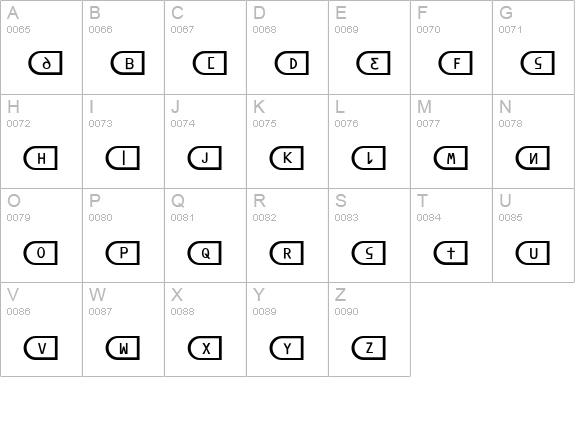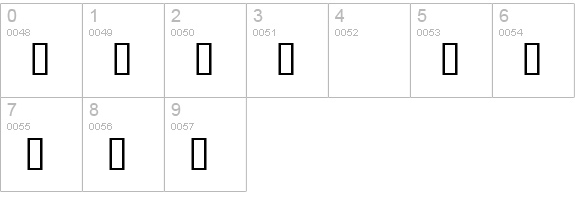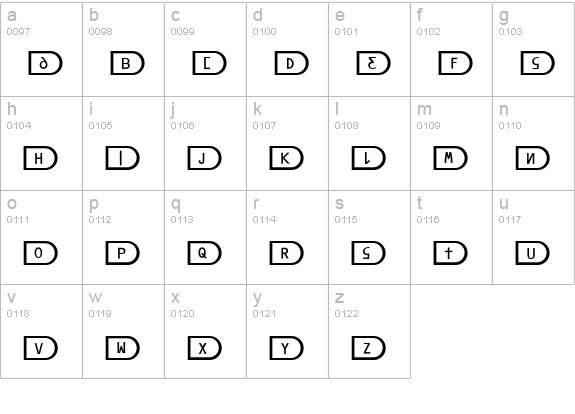
Dna Font Details
Introducing the captivating and futuristic Dna font, a sleek and dynamic typeface that will add a touch of innovation to any design project. This unique font is characterized by its modern and sophisticated look, making it perfect for a wide range of applications, from branding to digital presentations. What sets Dna font apart is its seamless blend of sharp lines and curves, creating a visually striking aesthetic that will surely catch the eye. Whether you're working on a website, advertisement, or print material, this font will elevate your design to new heights. The best part? Dna font is completely free to download at FontsMarket.com, giving you easy access to this exceptional typeface without breaking the bank. Don't miss out on the opportunity to enhance your designs with the contemporary flair of Dna font - download it today and watch your projects come to life!